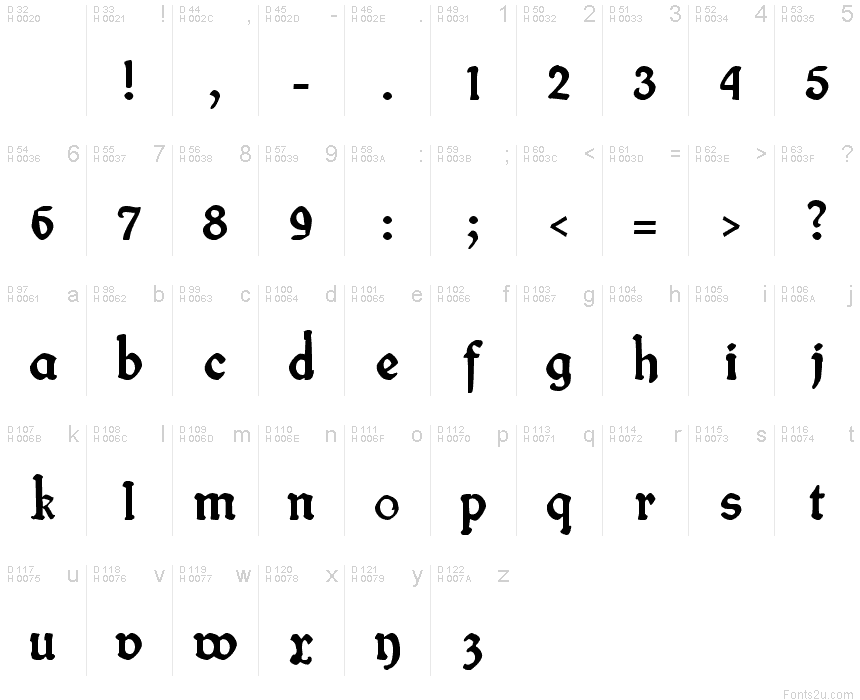
fin fraktur
Fin Fraktur font by Paulo W is a free medieval Gothic typeface with thick, inky strokes and softly chipped curves that feel straight off a hand-lettered parchment. The letters are dense and slightly irregular, giving text a rough-hewn, candlelit atmosphere rather than a sterile historic copy. It reads as bold, moody, and tactile-like wet ink pressed into coarse paper.
Using Fin Fraktur, you can brand metal bands, dark fantasy book covers, medieval festivals, escape rooms, game titles, or craft beer labels with a strong Old World presence that still feels approachable. This free font shines in large headlines and logos; pair it with a clean geometric sans for body text to keep everything legible while the Gothic texture does the storytelling.